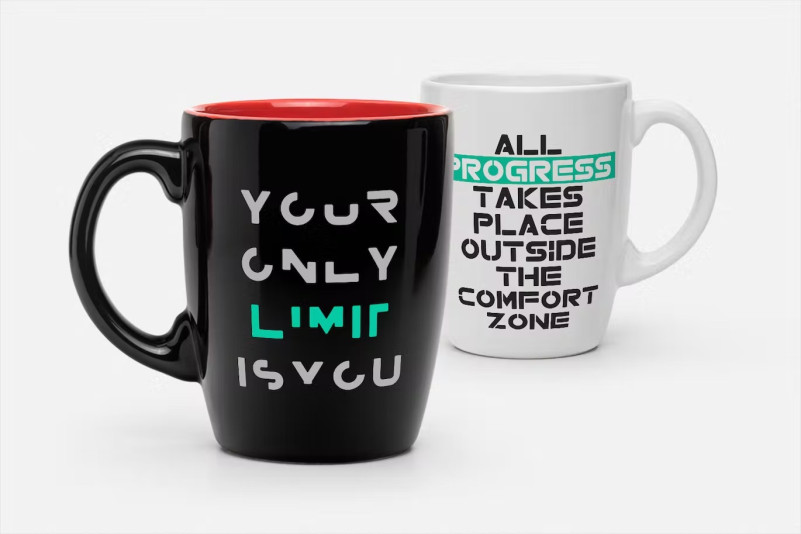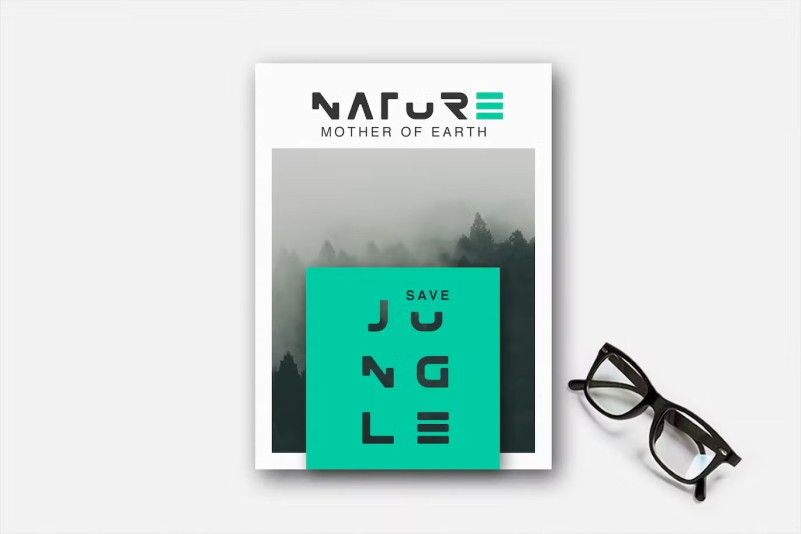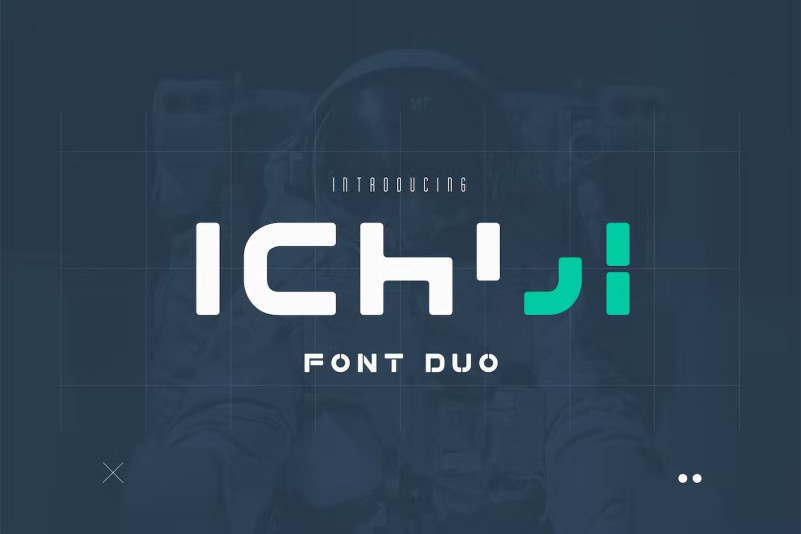
Ichiji Typeface Duo
Meet Ichiji Font Duo, a clean, powerful and modern sans serif typeface. Perfect for many different projects: quotes, blog header, poster, wedding, branding, logo, fashion, apparel, lettering, invitations, stationery, etc.